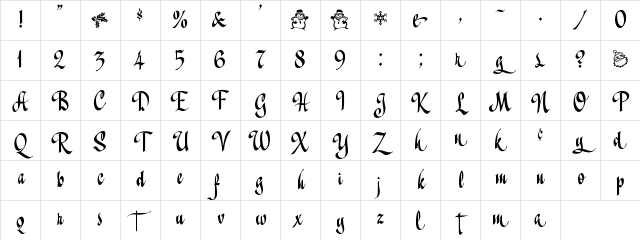
Complete A&S Christmas Script Regular glyph index. Displaying only characters natively supported by A&S Christmas Script Regular font.
A&S Christmas Script flows with the natural rhythm of handwritten lettering, making it ideal for designs that call for warmth and personal expression.
Font Pairing: Combine A&S Christmas Script with a simple geometric sans for maximum contrast - the tension between flowing curves and clean structure is a classic typographic pairing.
Pro Tip: Use A&S Christmas Script for short runs of text - names, titles, or taglines. Extended body copy in script faces tires the eye quickly.